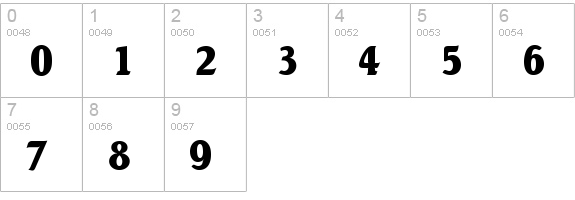
Seagull-Black is a maximum-weight, dramatic variant in the Seagull typeface family \xE2\x80\x94 well suited to maximum-impact headlines, posters, and packaging.
Introducing Seagull-Black font, a mesmerizing typeface that effortlessly combines elegance with a touch of modernity. With its sleek and sophisticated design, Seagull-Black font is perfect for a wide range of creative projects, from branding and logo design to editorial layouts and website headers. This versatile font showcases a distinctive style, featuring bold and sharp lines that exude confidence and professionalism. Its clean and legible characters make it easy to read, ensuring that your message is conveyed with clarity and impact. Seagull-Black font is not only visually stunning but also incredibly functional. Its wide range of glyphs and characters allow for multilingual support, making it suitable for various languages and global audiences. Whether you're crafting a corporate presentation or designing a stylish invitation, this font will effortlessly elevate your work to new heights. And the best part? Seagull-Black font is available free of charge! You read that right. You can easily download this remarkable font from FontsMarket.com, a trusted source for high-quality fonts. This means that you can enhance your projects with this exquisite typeface without breaking the bank. So why wait? Embrace the elegance and versatility of Seagull-Black font and take your designs to the next level. Download it today for free at FontsMarket.com and unlock a world of creative possibilities.